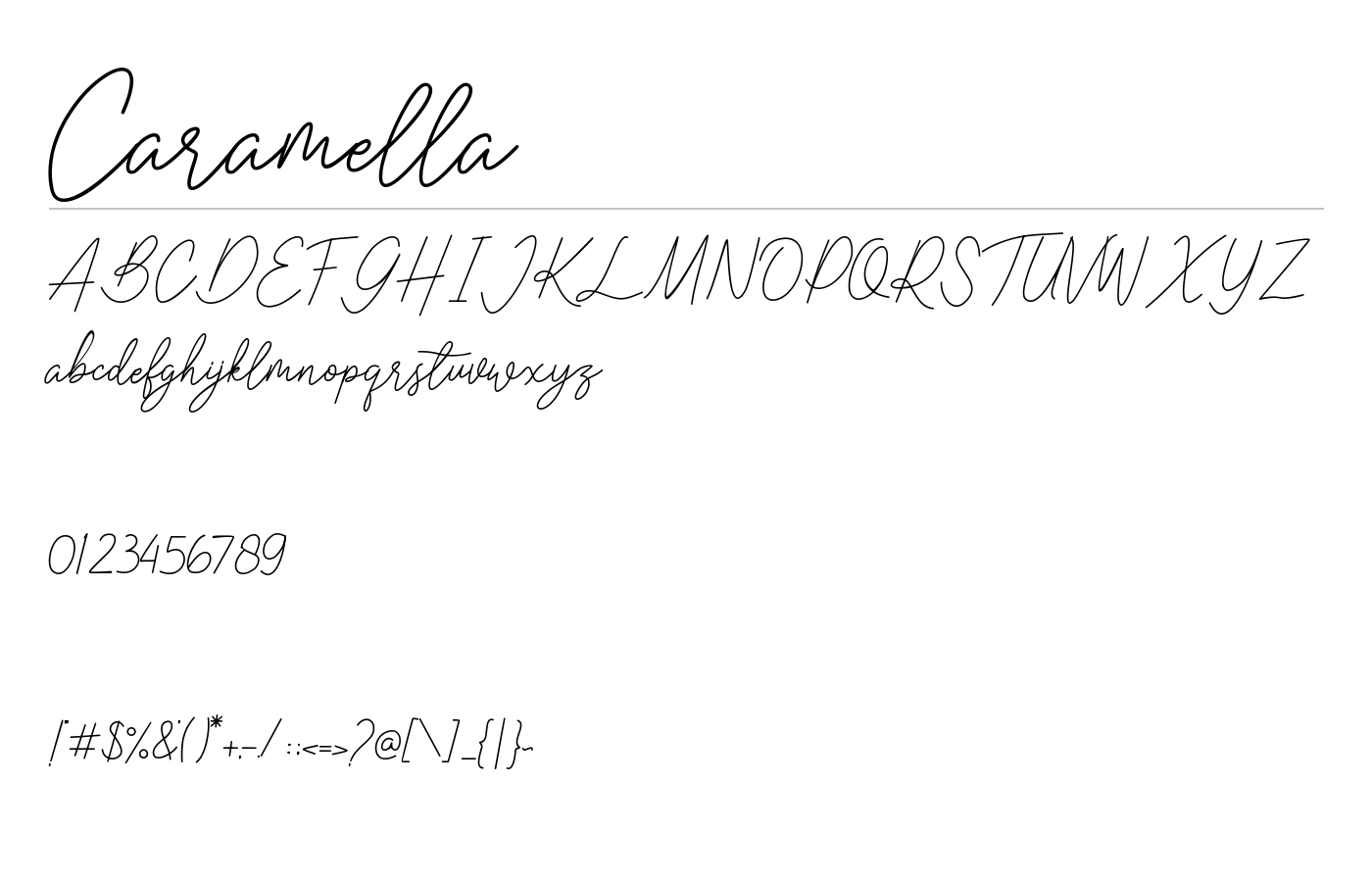
Caramella is a delicate, handwritten script font with a light, airy feel and elegant, fluid lines that mimic natural cursive handwriting. Its slender strokes and slightly slanted letterforms give it a personal, graceful touch, making it perfect for invitations, branding, and any design needing a refined, friendly, and approachable style. Its readability combined with a stylish, casual charm suits creative projects seeking a handwritten authenticity.
Caramella Font
About Caramella Font
| Designer | Nofi Sofyan Hadi |